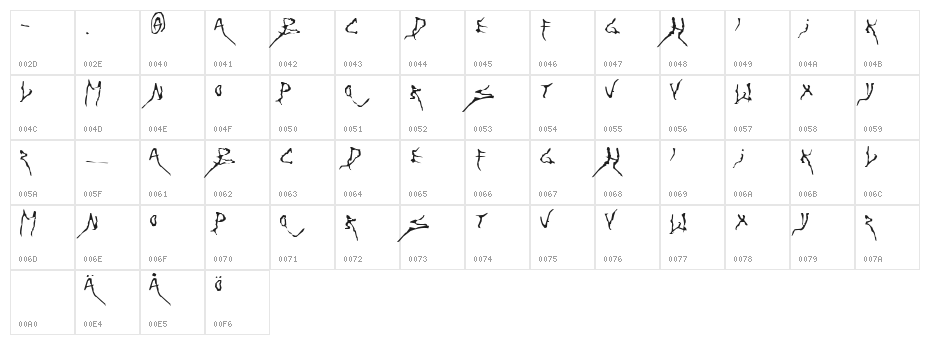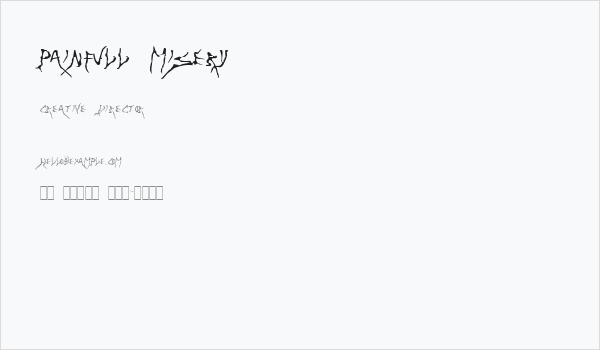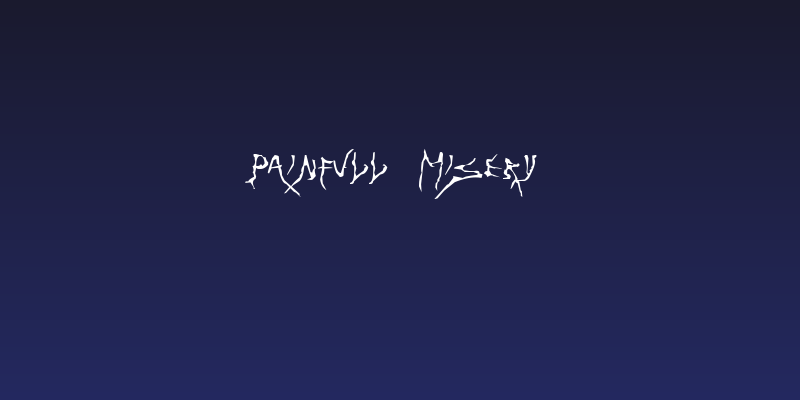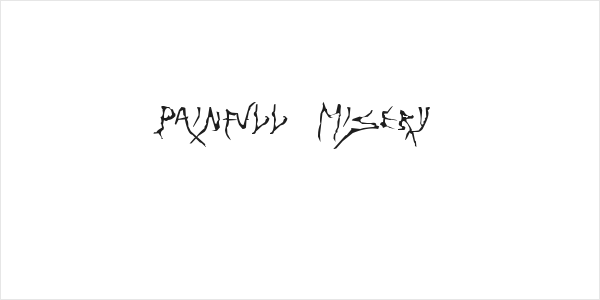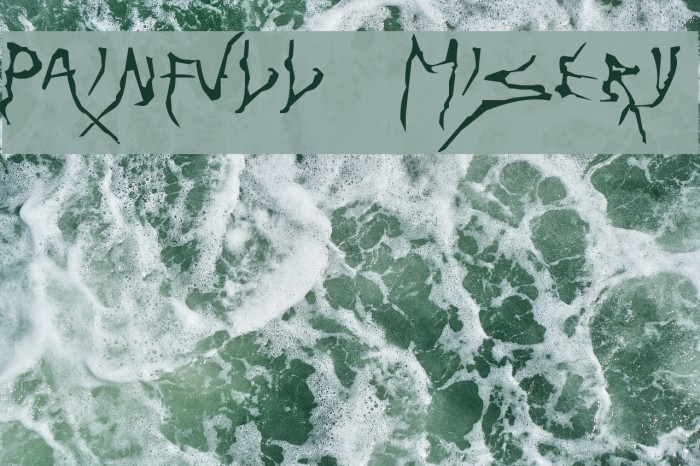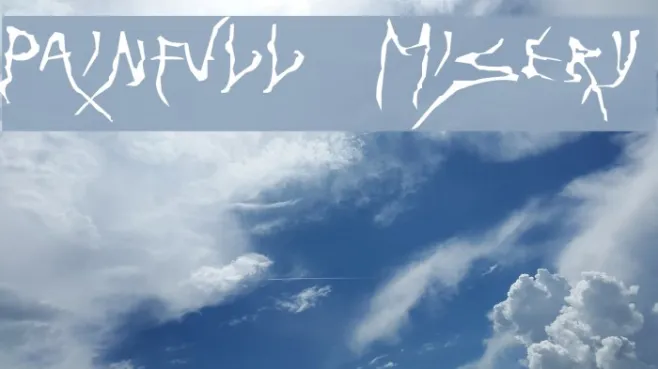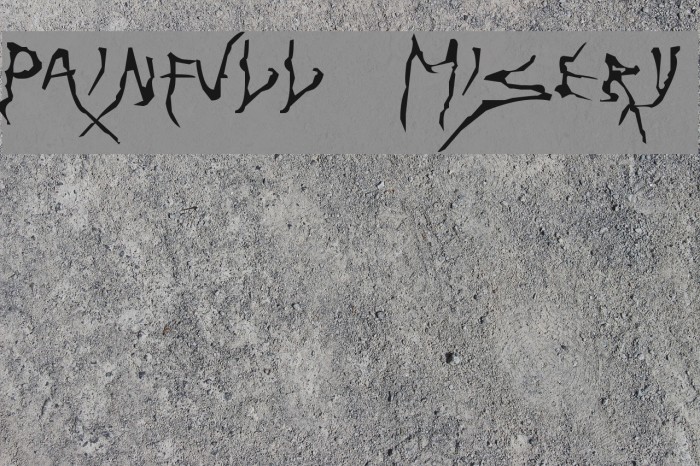
Painfull Misery Font
Painfull Misery Description
This font embodies a chaotic and distressed aesthetic, with jagged, sharp edges and irregular strokes that give it a raw, untamed appearance. The characters are uniquely distorted, resembling cracks or fractures, which adds to its unsettling and intense vibe. The uppercase and lowercase letters maintain a consistent style, with each character appearing as if it has been shattered or torn. The numbers and special characters follow the same design principle, ensuring a cohesive look across all elements. This font is ideal for projects that require a dramatic and impactful visual statement.
| Proposed Projects | Suitable for horror-themed designs, album covers, movie posters, or any project needing a dramatic and intense visual impact. |